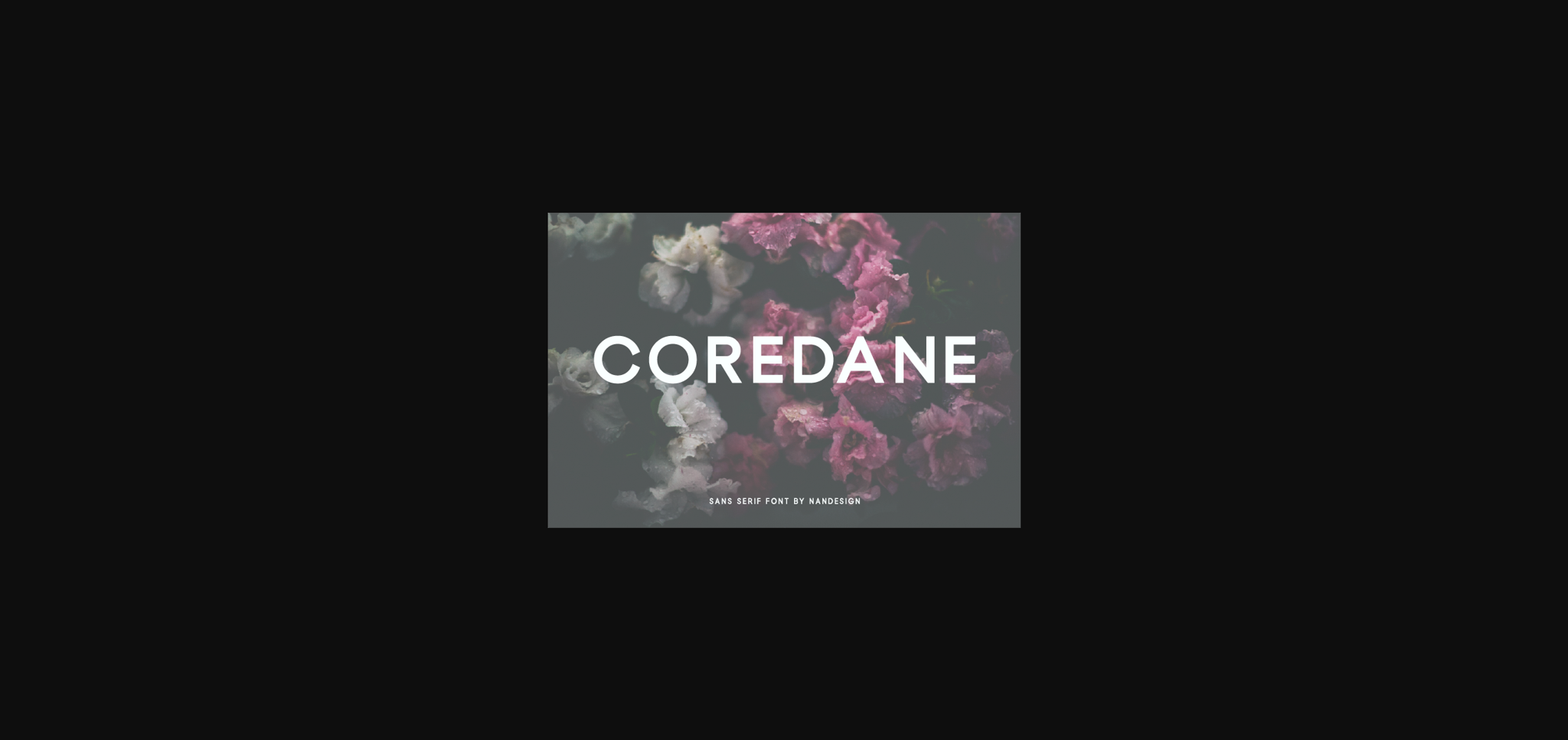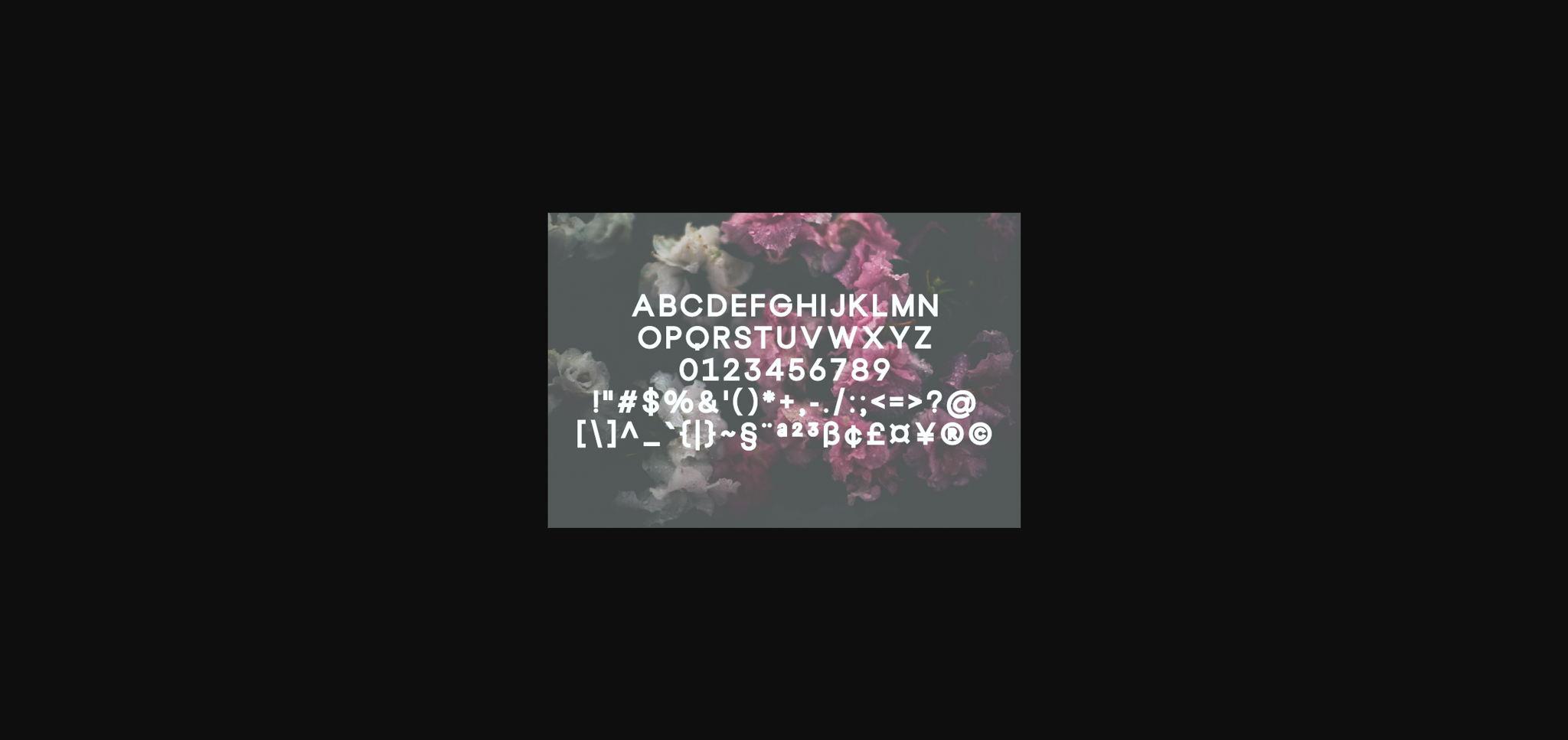
About Coredane Font
Coredane is a neat lettered sans serif font. Whether you’re using it for crafting, digital designing, presentations or greeting cards making, it’s perfect!